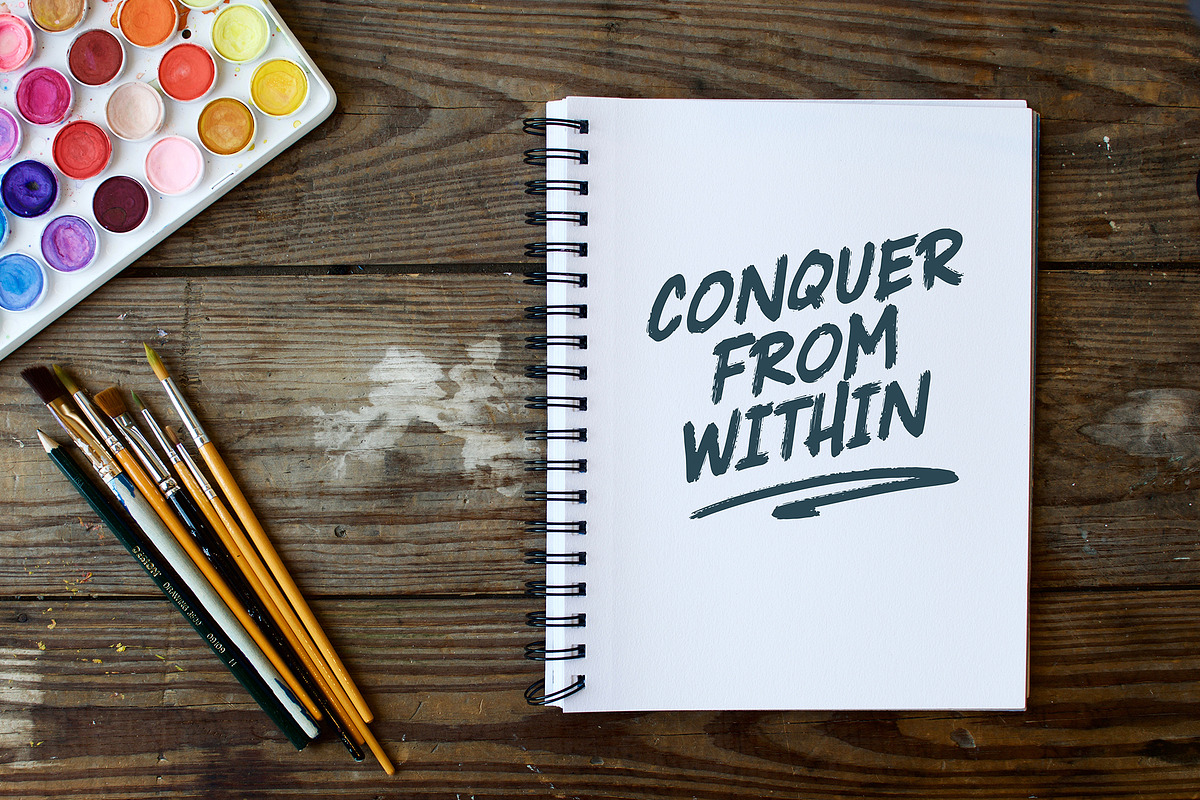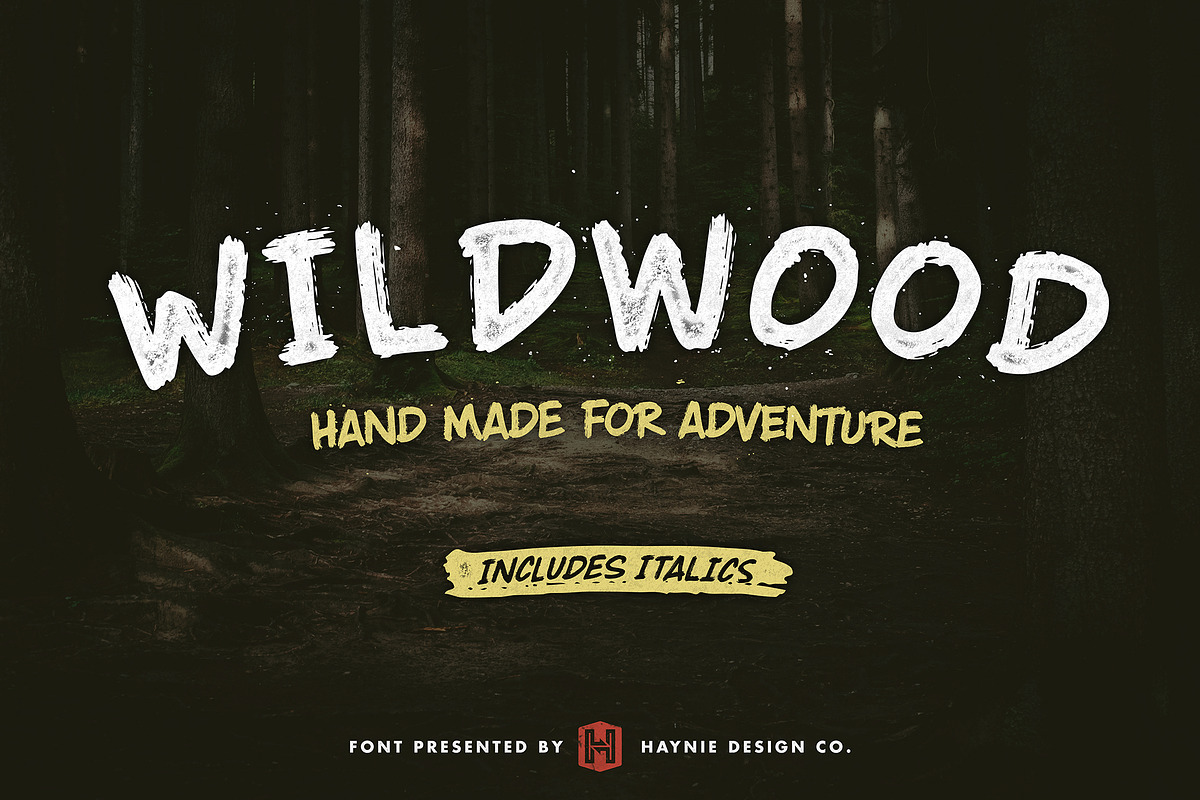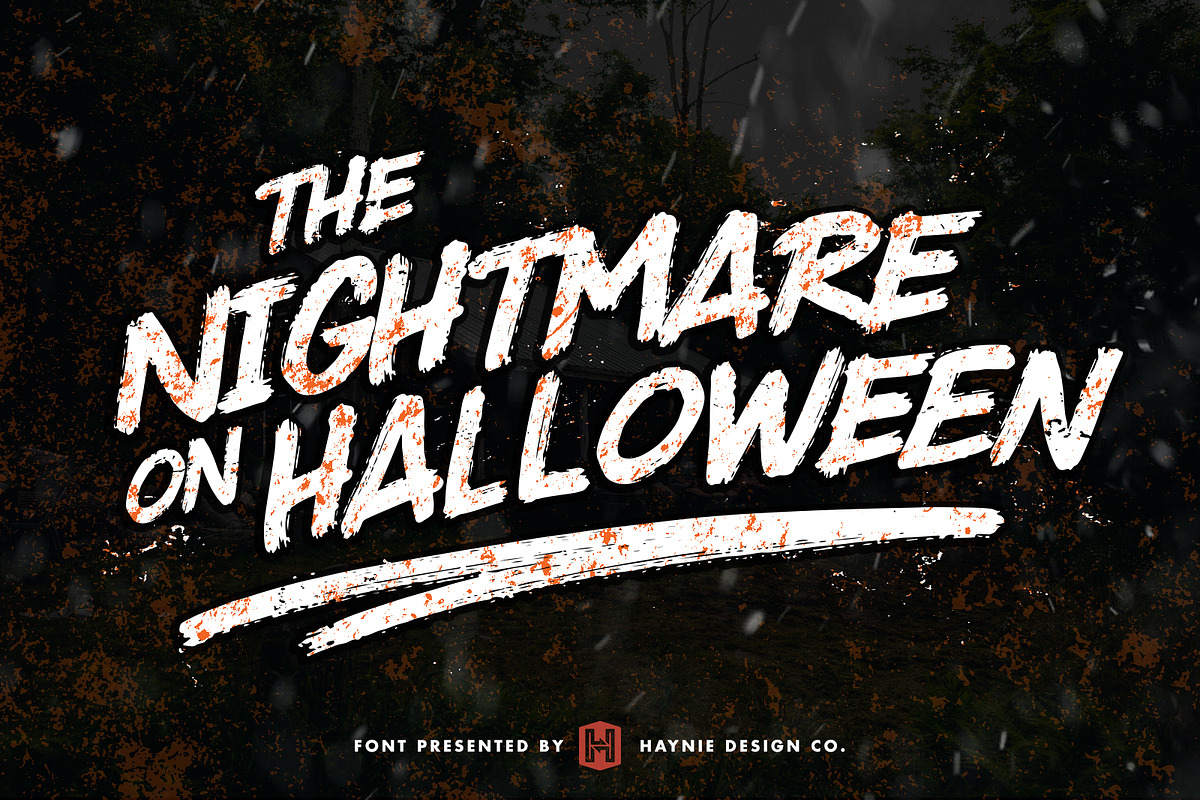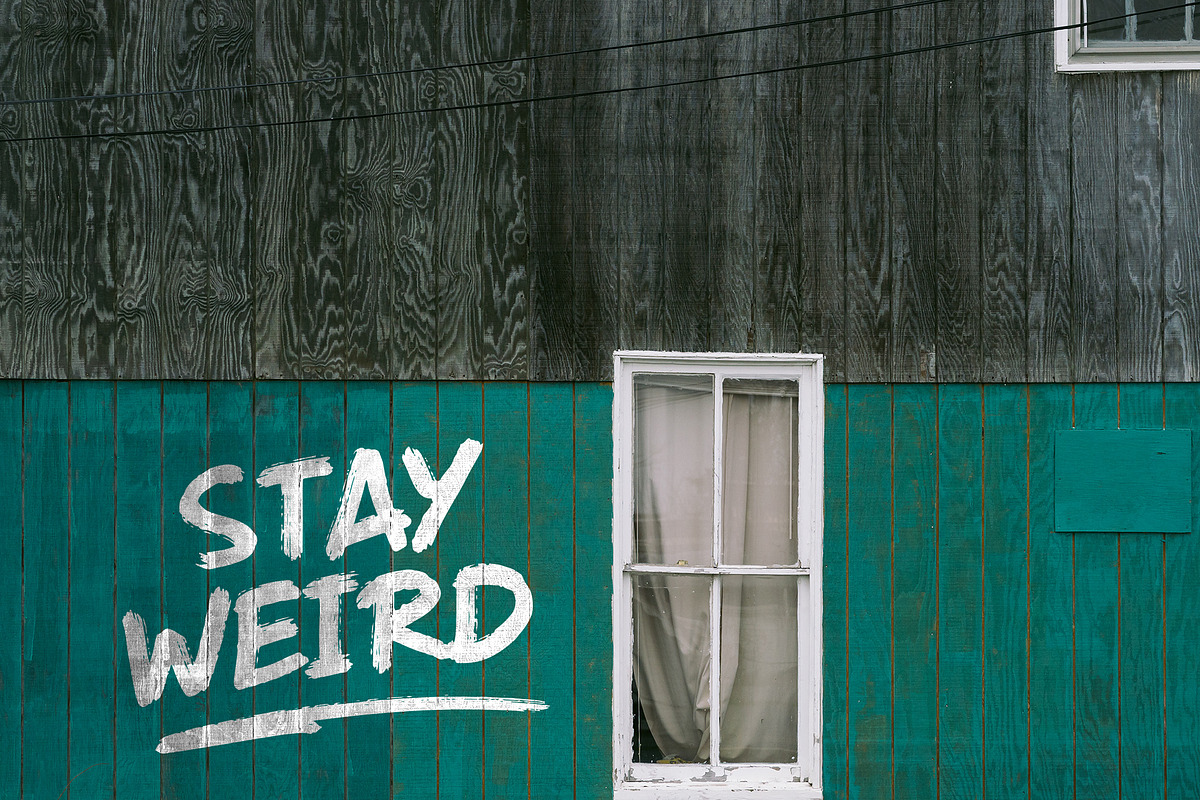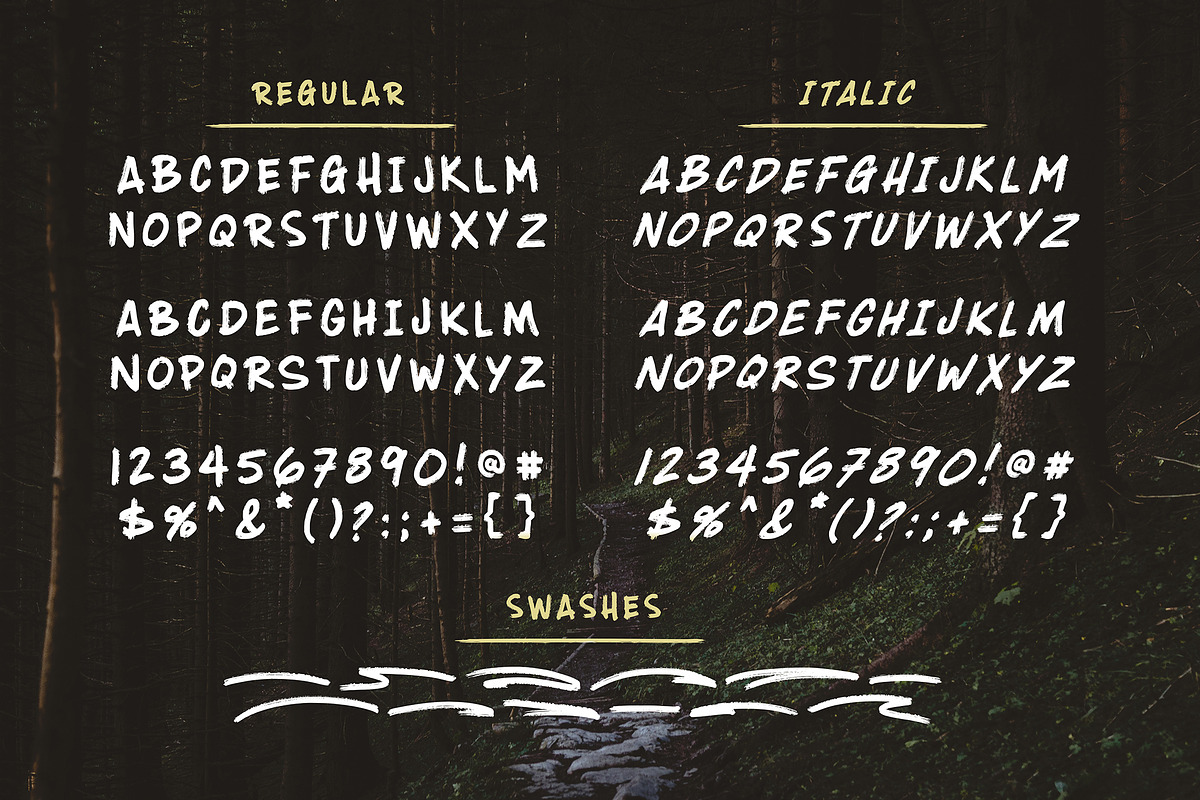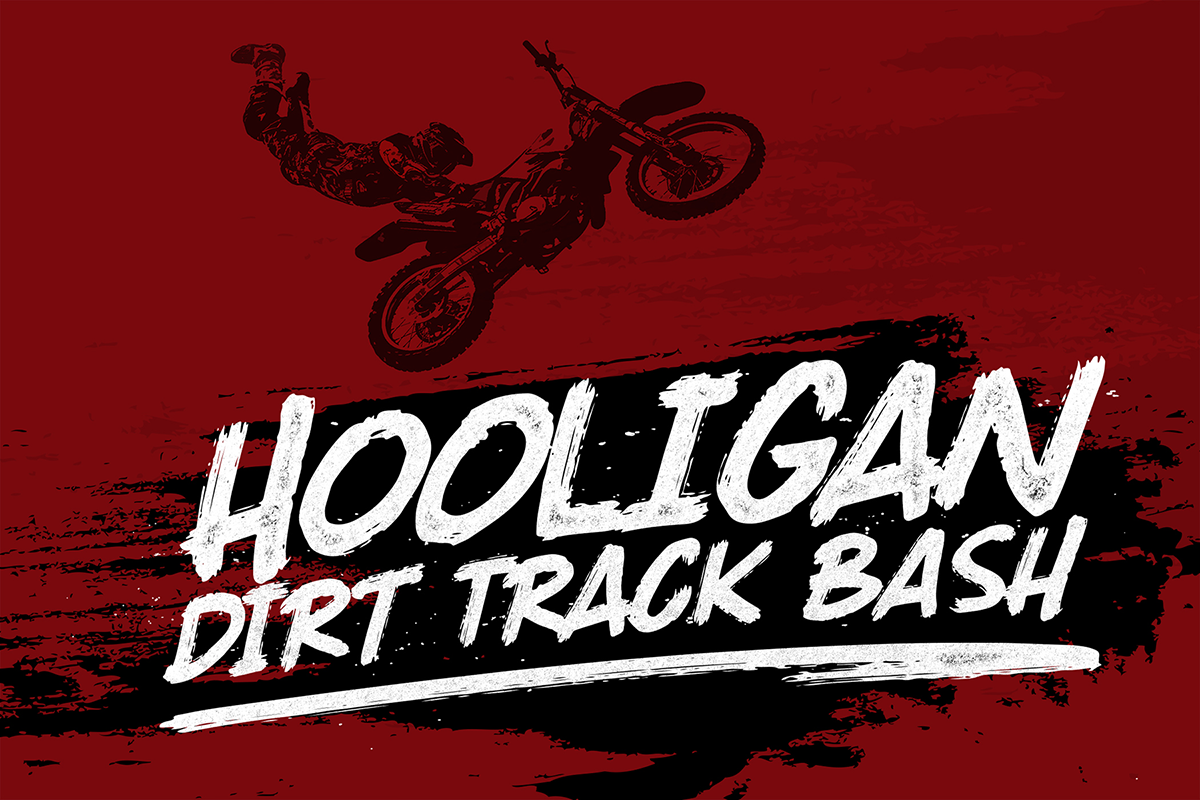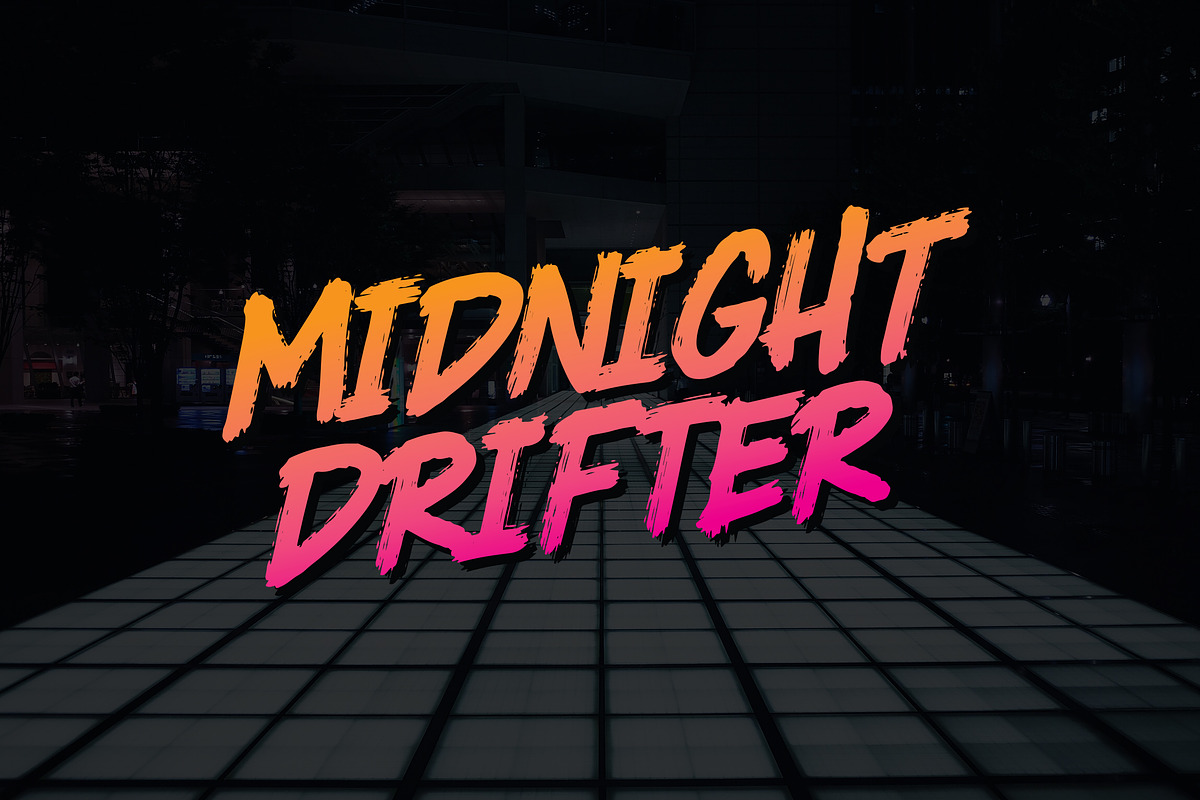
Wildwood Dry Brush Halloween Font
Wildwood is an adventurous and expressive dry brush all-caps display font. Featuring lowercase alternates and an italicized variant, Wildwood is built to be versatile enough to cover everything from vintage themes, promotional pieces, quotes, Halloween / horror designs, and more. The alternate lowercase letters and included bonus swashes really give it that final handmade touch!
Wildwood Medium - All uppercase letters with lowercase being stylistic alternates, punctuation glyphs, numbers.
Wildwood Italic - The same as Wildwood Medium, but all italicized
Wildwood Extras - Swashes!